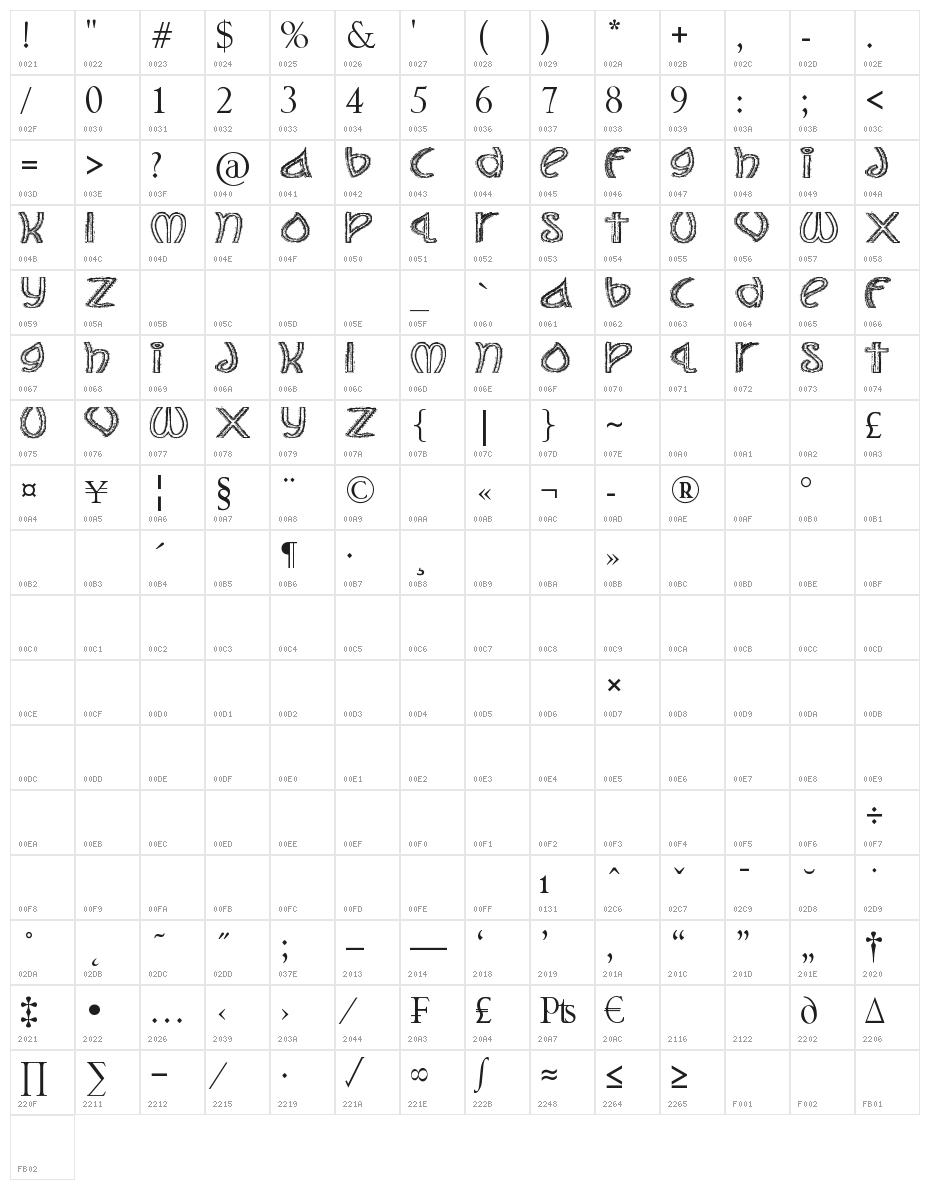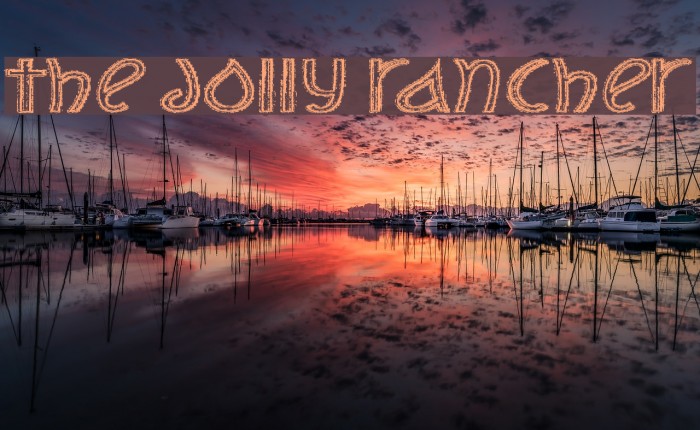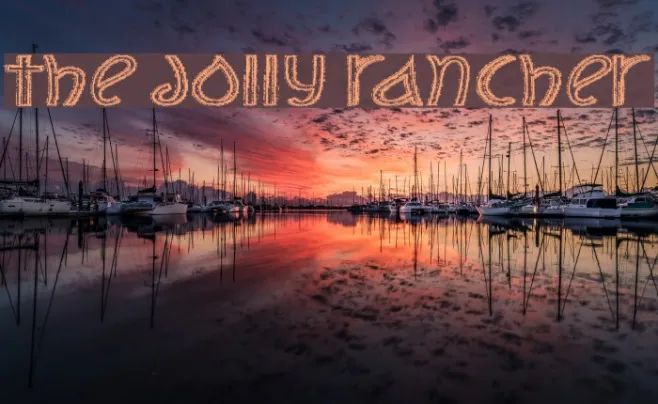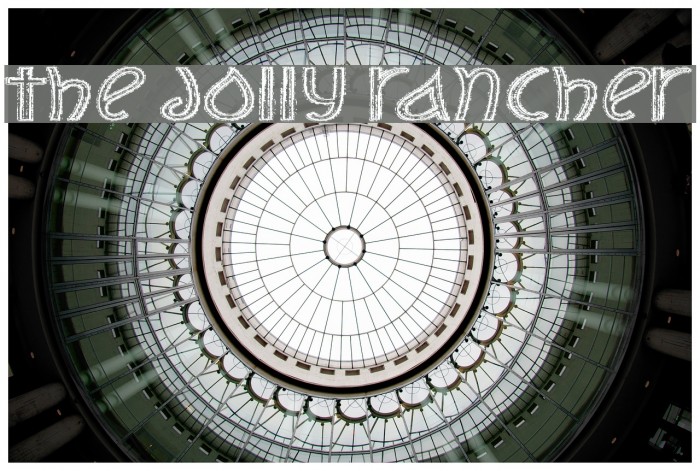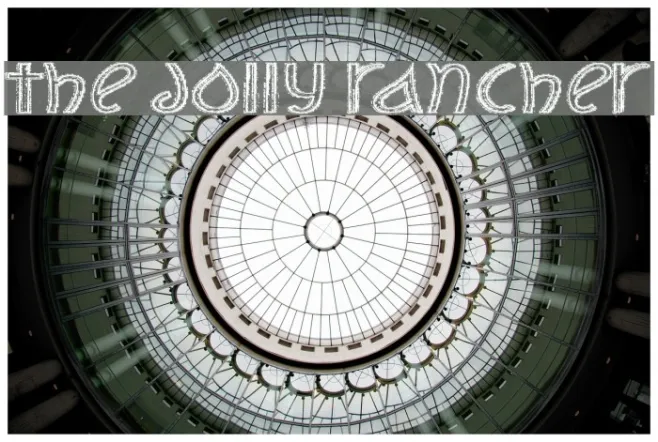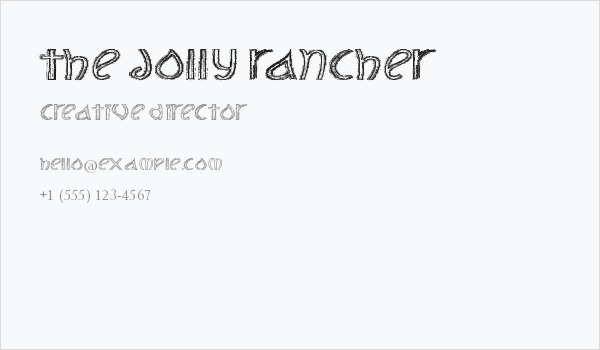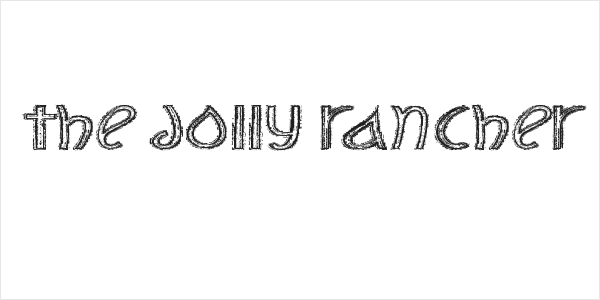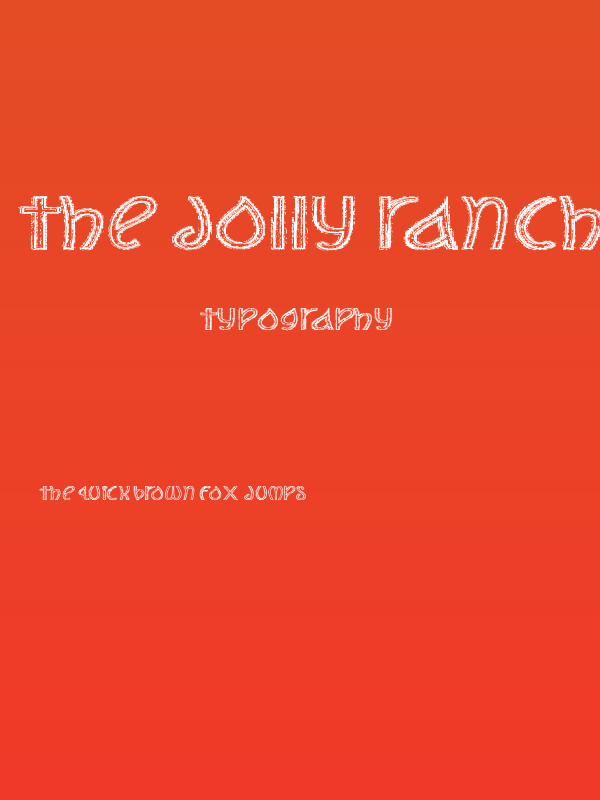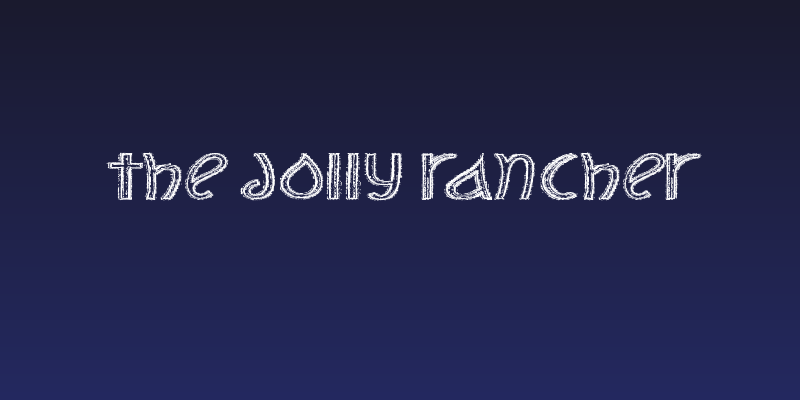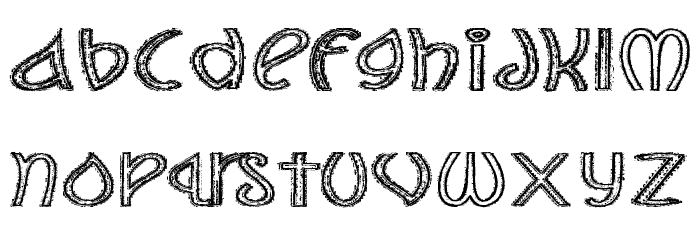
The Jolly Rancher Font
The Jolly Rancher Description
This playful and whimsical font features a unique, hand-drawn style with a textured appearance that adds a sense of fun and creativity. The letters are bold and slightly irregular, giving them a lively and dynamic feel. The uppercase and lowercase characters maintain a consistent style, with rounded edges and a slightly exaggerated form that enhances their playful nature. The numerals are clear and legible, complementing the overall design. Special characters are included, maintaining the same textured and lively aesthetic. This font is perfect for projects that require a touch of whimsy and creativity.
Overall StyleWhimsical
Proposed ProjectsIdeal for children's books, playful branding, creative posters, and fun invitations.